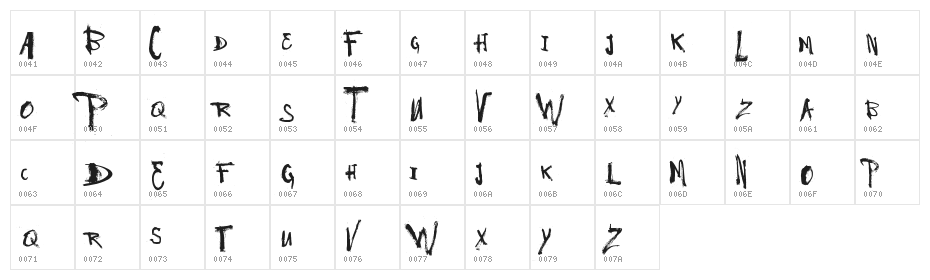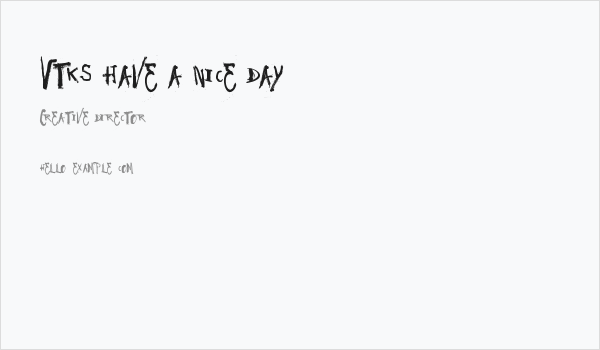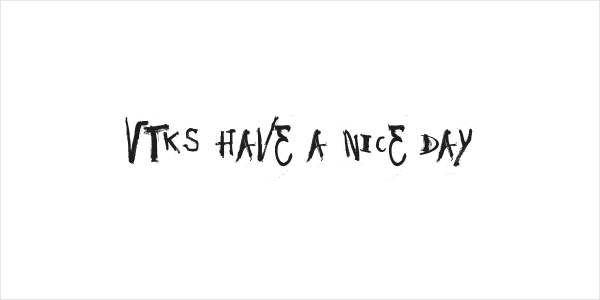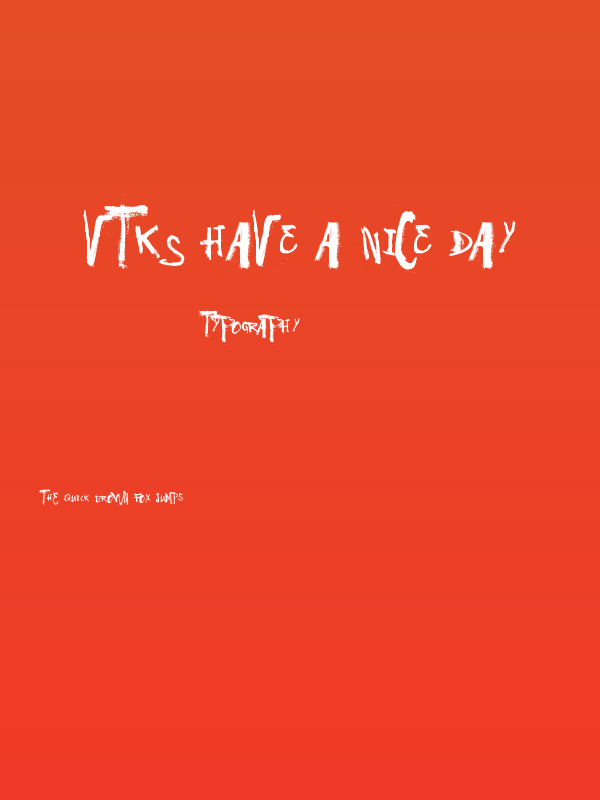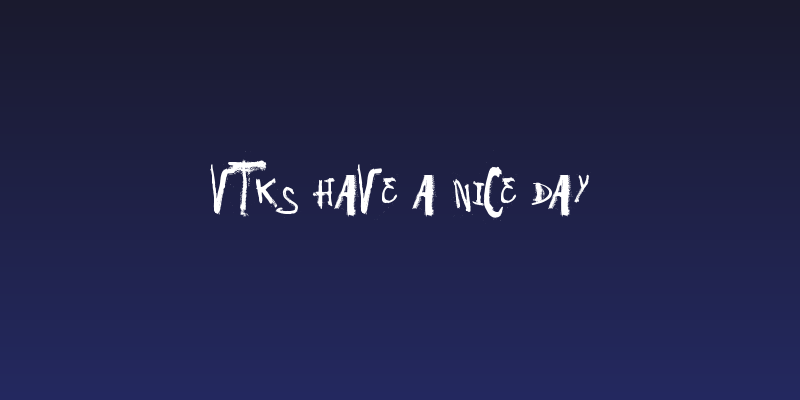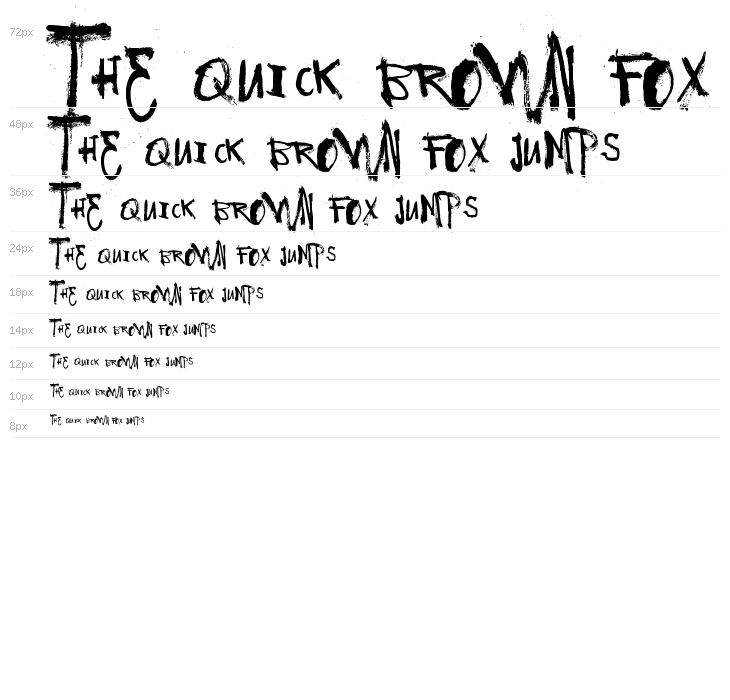
Vtks Have a Nice Day Font
Vtks Have a Nice Day Description
This font features a bold, expressive style with a hand-painted appearance, characterized by its rough, textured strokes and irregular letterforms. The uppercase and lowercase letters exhibit a dynamic, energetic feel, with varying stroke widths that create a sense of movement and spontaneity. The numbers and special characters maintain this artistic flair, contributing to an overall cohesive look. The font's unique, grungy aesthetic makes it stand out, ideal for projects that require a bold statement or an edgy, artistic touch.
| Proposed Projects | Ideal for album covers, posters, street art designs, and creative branding projects. |